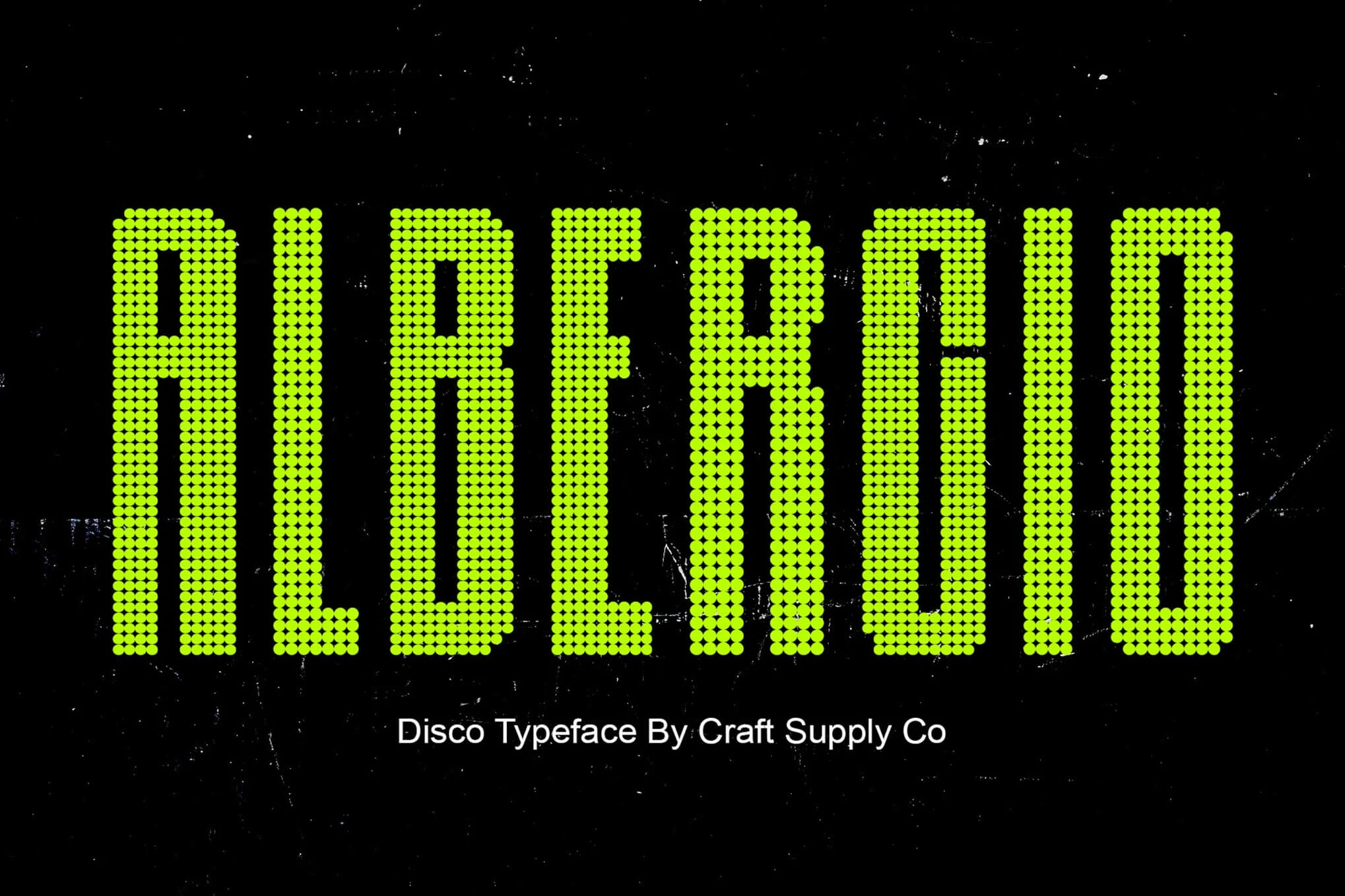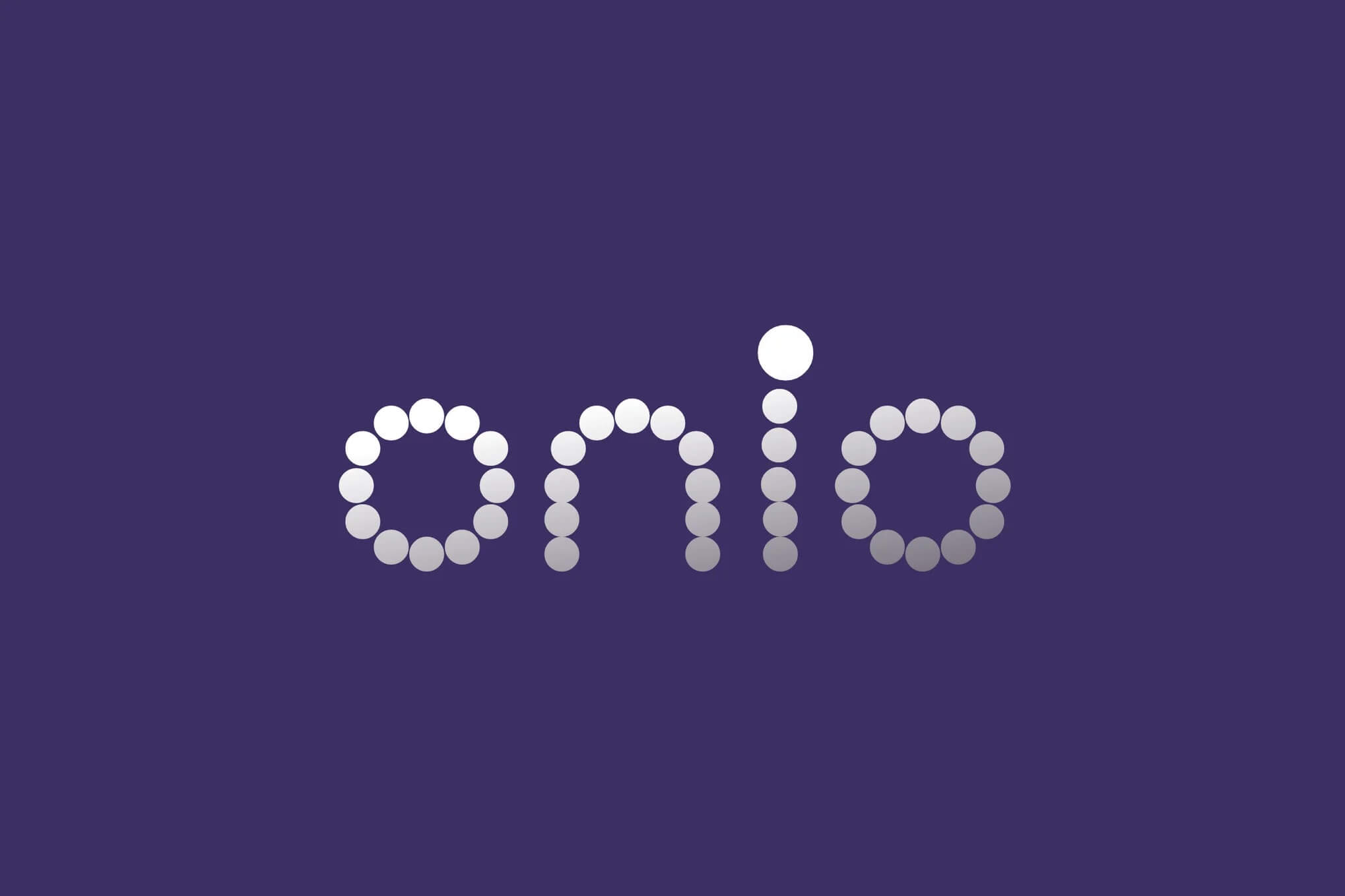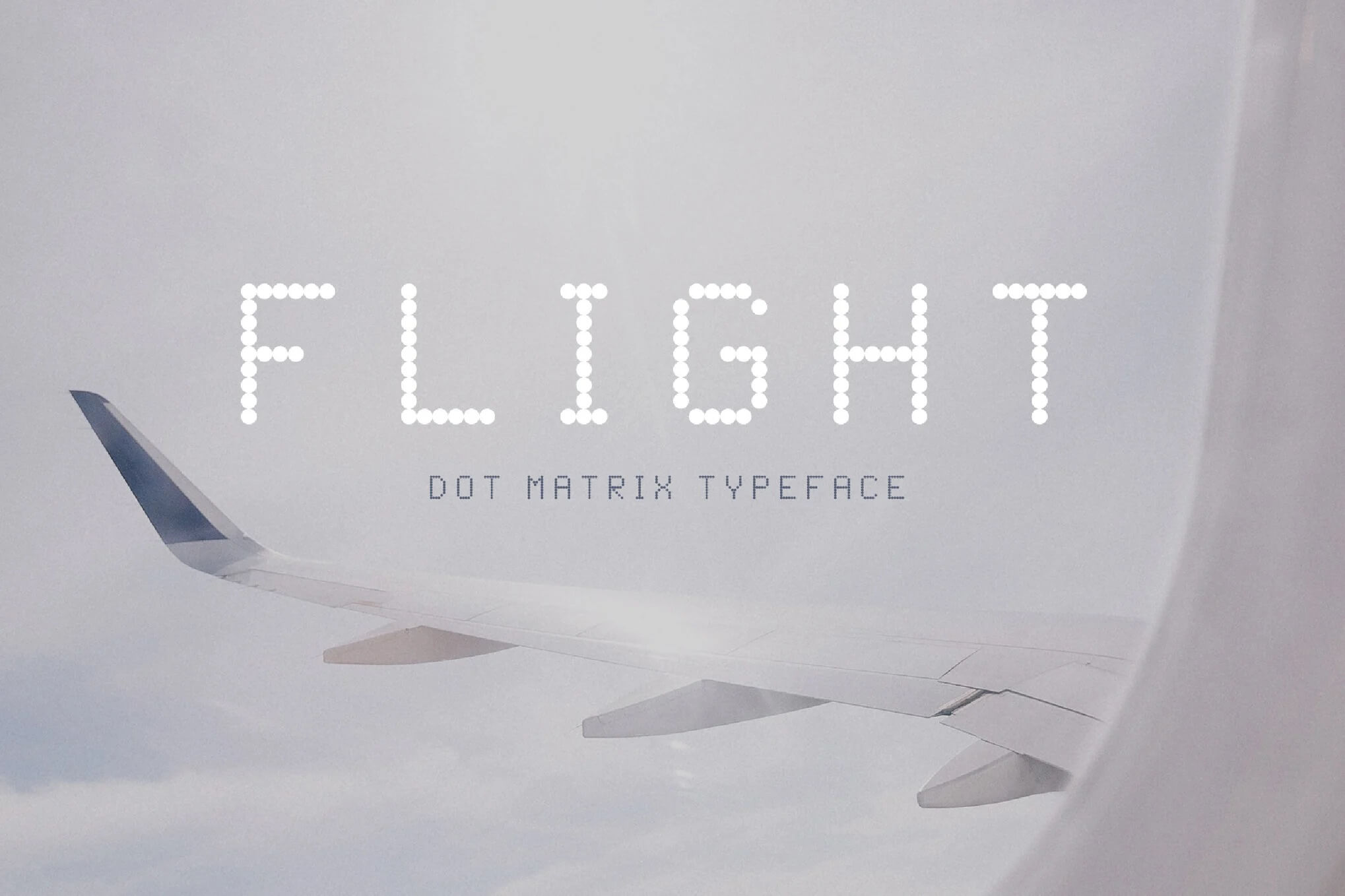
7+ Fonts with Dots
There’s something curiously satisfying about a dotted font. Maybe it’s the rhythm. Perhaps it’s the sense that the letters feel less “typed” and more drawn.
The use of dotted fonts has this nostalgic pull, like the tracing worksheets from when as children, now you get to create it instead of being a student.
In this article we’re examining dot fonts, using what we know in typographic basics to use them in your designs.
For anyone that has ever glanced at one of those KG Primary Dots style fonts and said to yourself, “Hmmm…I wonder if I could get away with using this on my next project.” This is for you.
What on Earth Is a Dotted Font, and Why Would Designers Use One?
A dot font (as I’m sure you’ve deduced) is exactly what it sounds like, a typeface made entirely of tiny dots arranging themselves to create each letter, rather than continuous lines. Call it type-and-texture venn diagramming.
These are designer favorites because they deliver an immediate hit of character. Instead of another pristine sans serif, dotted fonts seem friendly, hand-hewn and somehow playful, like fonts with tails. They have that human touch so many digital designs lack.
And let’s face it, sometimes a font that looks not like it was drawn with a marker but actually carved from one is the very thing your project needs.
1. Calben Disco
The image displays "Calben Disco" in a dotted font on a purple background with yellow lines, created by Craft Supply Co.
Calben Disco has that great combination of retro charm and modern edge. Its dotty, letter design immediately makes a tiny disco pop out of you that still feels crisp and cool. It’s bold, it has a playful aspect and it is ready to lift any headline or poster out of the ordinary.
2. Albercio Disco
Bold, dotted yellow font spells "ALBERGO" against a black background. Caption reads "Disco Typeface By Craft Supply Co."
There’s something about the fun, retro energy of Albercio Disco that’s immediately arresting. The dotted design provides a cool disco vibe, while remaining sleek and up to date.
The kind of font that won’t look out of place in a bigger-than-biggs billboard or on the kind of poster you walk past, then turn to take another good, hard look at.
3. Digifest – Modern Dot Display Sans Typeface
Dark-themed promotional image showcases a digital dot display font, "DIGIFEST," over a close-up of a camera, with "Typia Nesia Studio" text.
Digifest feels like the future. And it features a clean dot pattern that excudes digital, techy vibes right off the bat. Ideal for gaming, posters or anything futuristic, this font will make your design look super sharp, edgy and packed with power!
4. Roinert
A purple background featuring "onio" text in circular, white dots forming each letter, creating a modern, minimalist design.
Roinert is forward-looking and name with a big presence. The dot-covered letterforms convey a modern, techy vibe similar to what you might expect from an emerging digital network.
It’s neat and self-assured, and it still works great as a statement for brands looking to be seen as cutting edge and future forward.
5. Polka Dot
A red and white chevron pattern shows "polka dot" in whimsical red font. Below it reads "Handwritten Font duo" on a red banner.
Polka Dot is joyous and full of character. It has that playful hand written feel which brings cheer to any design. I love that it’s available in two varieties, with dots or without, meaning you can use it for crafts, pretty prints or happy DIYs.
6. Alvera | Dot-Matrix Sans Typeface
Dot-matrix typeface advertisement over typewriter keys, showcasing "alvera" font supporting 100+ languages, offering regular and bold styles with circle and square forms.
Alvera has such a great combination of retro meets futuristic vibes. It’s like old-school printer dots colliding with cool digital design.
With more than one thousand glyphs and two dot styles, it’s bold, clean and absolutely itching to make your text stand out no matter the project.
7. Pattern Silhouette Font
Vibrant purple-pink gradient background displaying the word "PATTERN" with various designs. Text below says, "A new patterned themed font."
Pattern Silhouette Font is fun and whimsical. Each letter reads as a mini artwork, with its jumble of lines, dots and shapes. It’s excellent for creative projects that require a playful, handmade feel to them and immediately draws attention in the best possible way.
8. Flight – Dot Matrix Typeface
Airplane wing viewed from a window, cloudy sky background. Text "FLIGHT" in dot matrix typeface overlays the scene, emphasizing travel theme.
Flight has that nostalgiac digital feel which makes me think of old airport boards and vintage tech. It’s clean and modern and strikes me as unexpectedly elegant for a dot matrix style. Ideal for project that call for a blend of old world charm and futuristic precision.
Whether you’re making printables for the classroom, rebranding a creative studio or producing printable art, there’s a dotted type here for you.
Not all good design is complex; sometimes, all of the right dots just get connected.